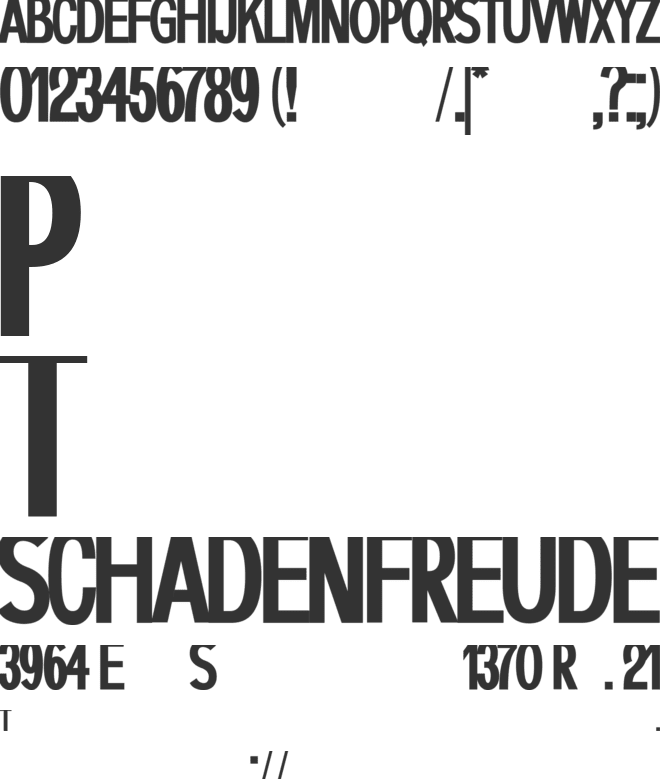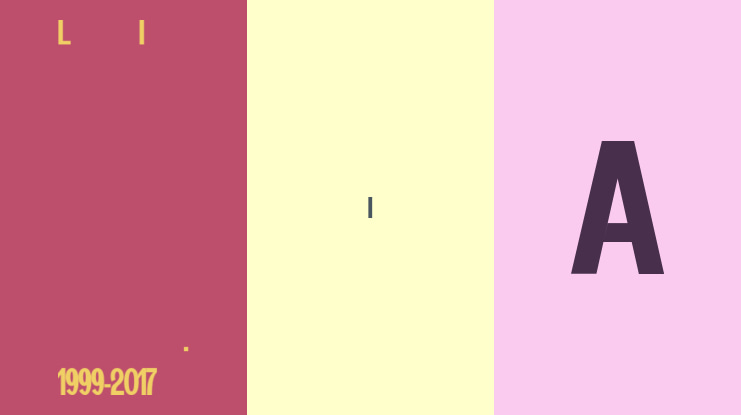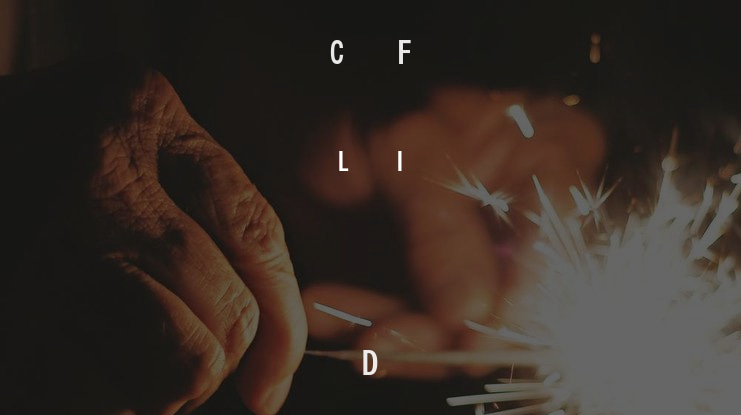
π¨ Font Name: [Cenova ] by Minimalist Art Studio
π¨ Font Description: Cenova is a Swiss geometric grotesk with crisp structure and multilingual finesse, ideal for modern editorial and branding work.